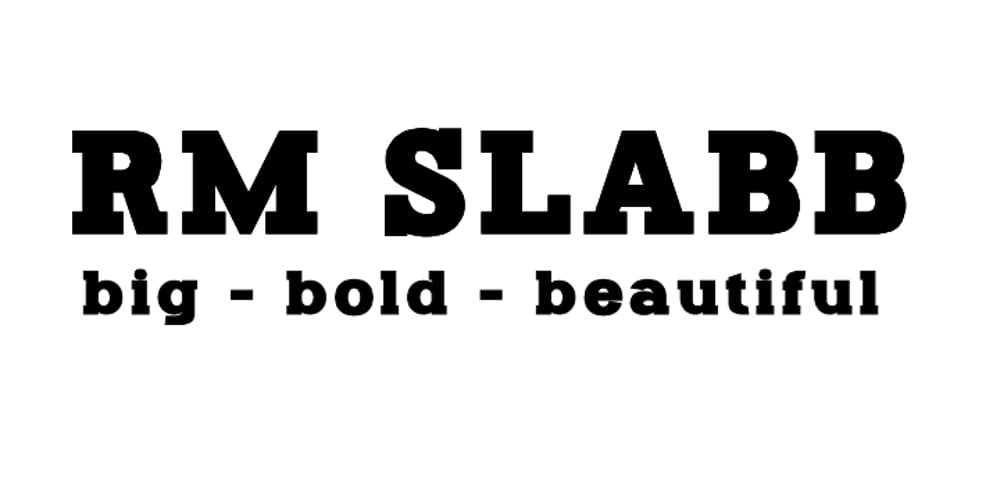
RM Slabb
RM Slabb font
RM Slabb Font Family was designed by Ray Meadows and published by Ray Meadows. RM Slabb contains 1 styles and family package options. This bold display font has considerable strength and will grace any design that requires extra impact. Due to the modular nature of this design there may be a very slight lack of smoothness to the curves at extremely large point sizes (around 100 pt and above).